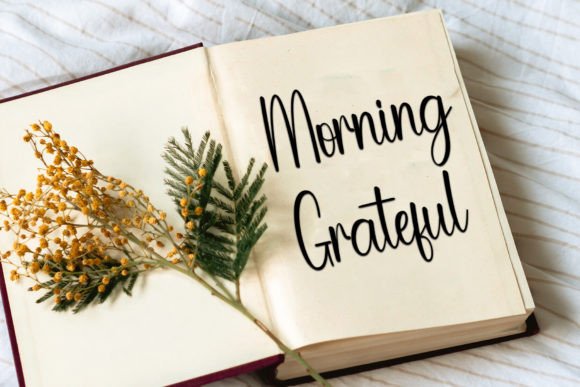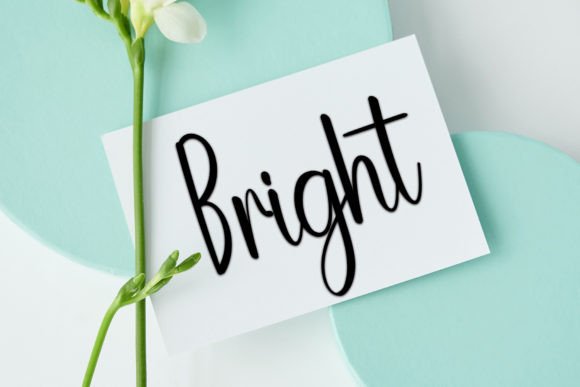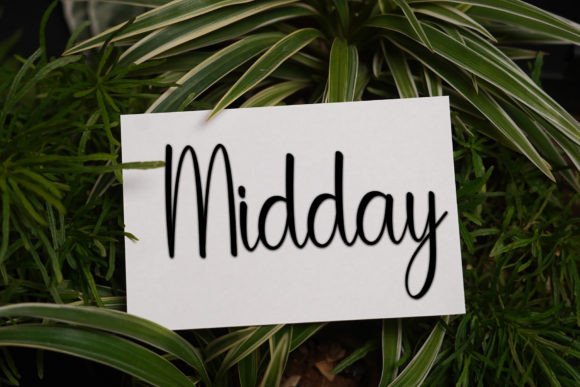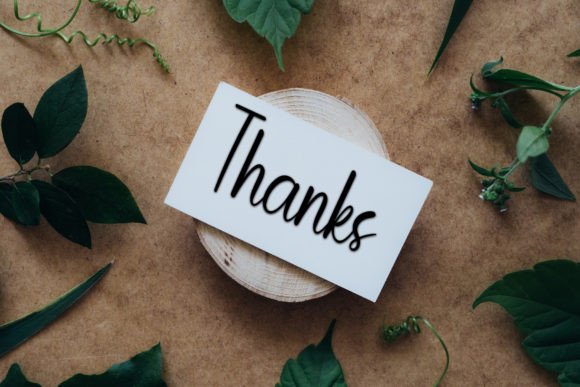
Introduction to Mistick Font
Have you ever stumbled upon the perfect font while working on a creative project, only to feel a rush of excitement as your design transforms into something truly special? For designers, finding that elusive font that brings our vision to life is a moment we cherish. One such font that has captured the hearts of many is the Mistick Font, a stylish handwritten font that exudes a contemporary atmosphere and impeccable form.
With its timeless classic calligraphy inspiration, Mistick Font is a design resource that adds a touch of elegance to any project. Its balanced and varied design makes it perfect for enhancing the beauty of your work, whether you’re creating a brochure, logo, or social media graphics. And the best part? This high-quality font is PUA encoded, allowing you to access all its amazing glyphs and ligatures with ease, making it a valuable addition to your design toolkit.
Key Features of Mistick Font
- High-quality design suitable for creative projects, including graphics, logos, and typography.
- Unique, modern aesthetic with a transparent background, ideal for overlays and text effects.
- Perfect for designers seeking a distinctive, modern font to elevate their creative project.
Honest Review: Mistick Font
I recently stumbled upon the Mistick Font and I must say, it’s a great addition to any designer’s toolkit. The font is free to download and offers a high quality, unique aesthetic that’s perfect for creative projects.
One of the things that stands out about the Mistick Font is its transparent background, making it a great choice for designs that require a clean and minimalist look.
- Unique, high-quality design that’s perfect for creative projects
- Transparent background for clean and minimalist designs
- The font may not be suitable for projects that require a bold or dramatic look
- The transparent background may not be compatible with all design software
Overall, I’m impressed with the Mistick Font and think it’s a great addition to any designer’s toolkit. While it may not be perfect for every project, it’s definitely worth considering for creative projects that require a high-quality, unique font.
Tips for Getting the Most Out of Mistick Font
Mistick Font is perfect for use in logos, branding, and marketing materials. Its high quality and transparent background make it ideal for creating a professional and eye-catching design. Additionally, its free download makes it a valuable design resource for any creative project.